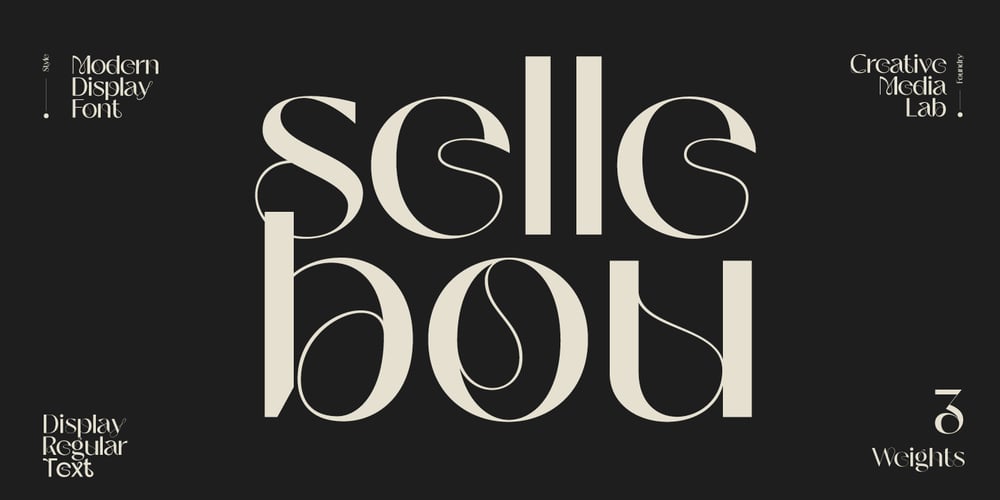
Sellebou Font Family was designed by Kadek Mahardika and published by Creativemedialab. Sellebou contains 4 styles and family package options. Sellebou is a modern display font. It consists of three weights, display, regular and text.Straight lines combined with a slight curve make Sellebou look modern and unique. Try uppercase for a simple look. Sellebou is perfect for website headers, logos, Instagram stories, magazines, or fashion-related branding.